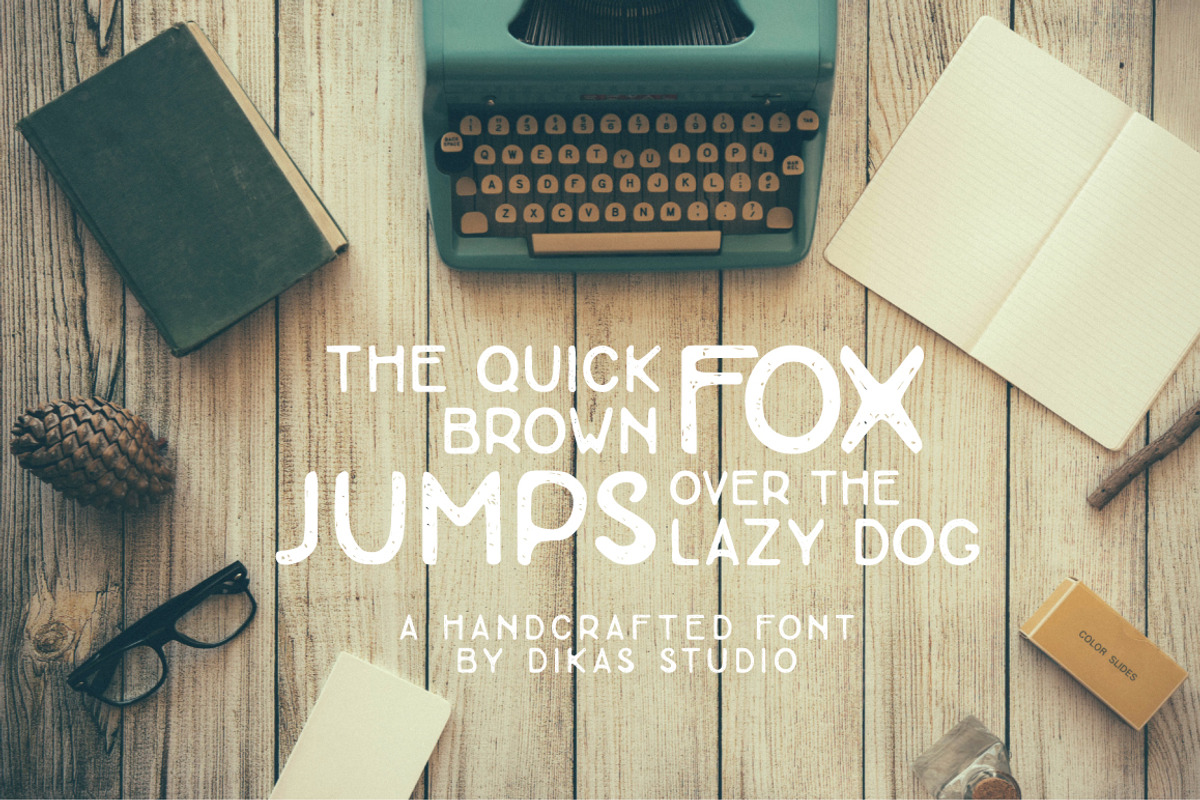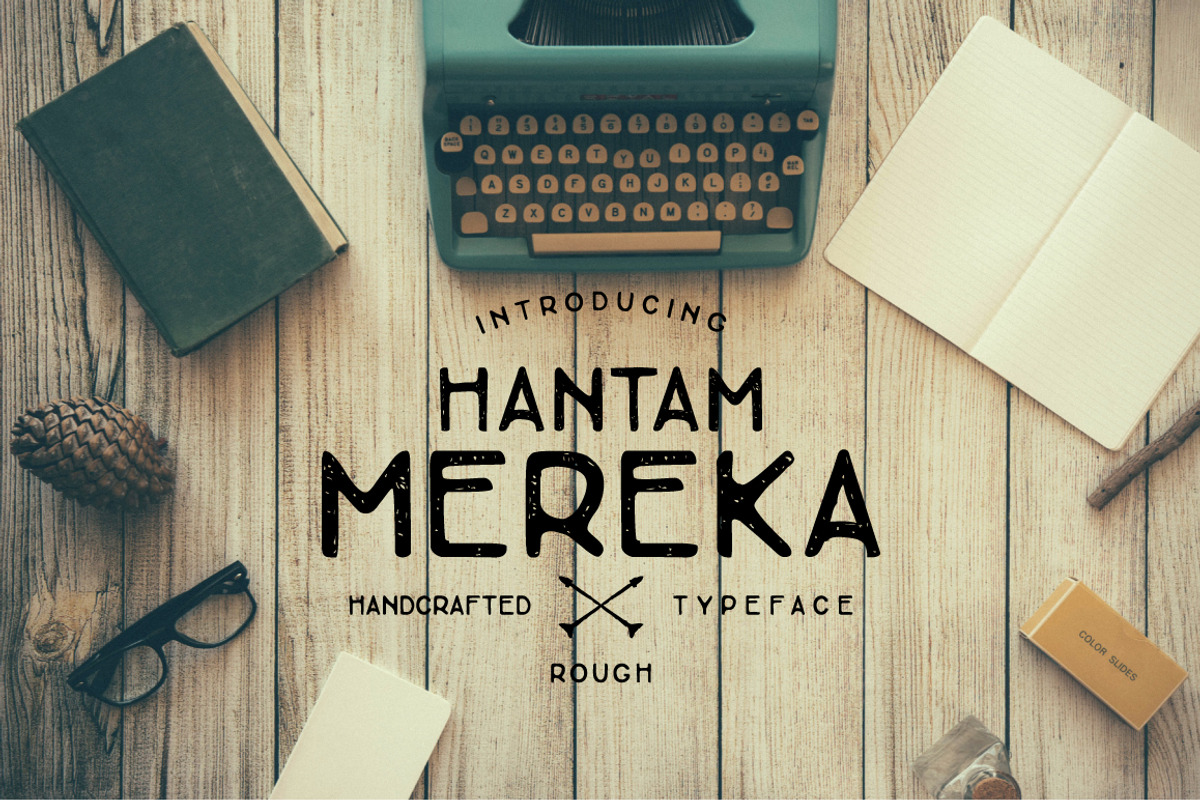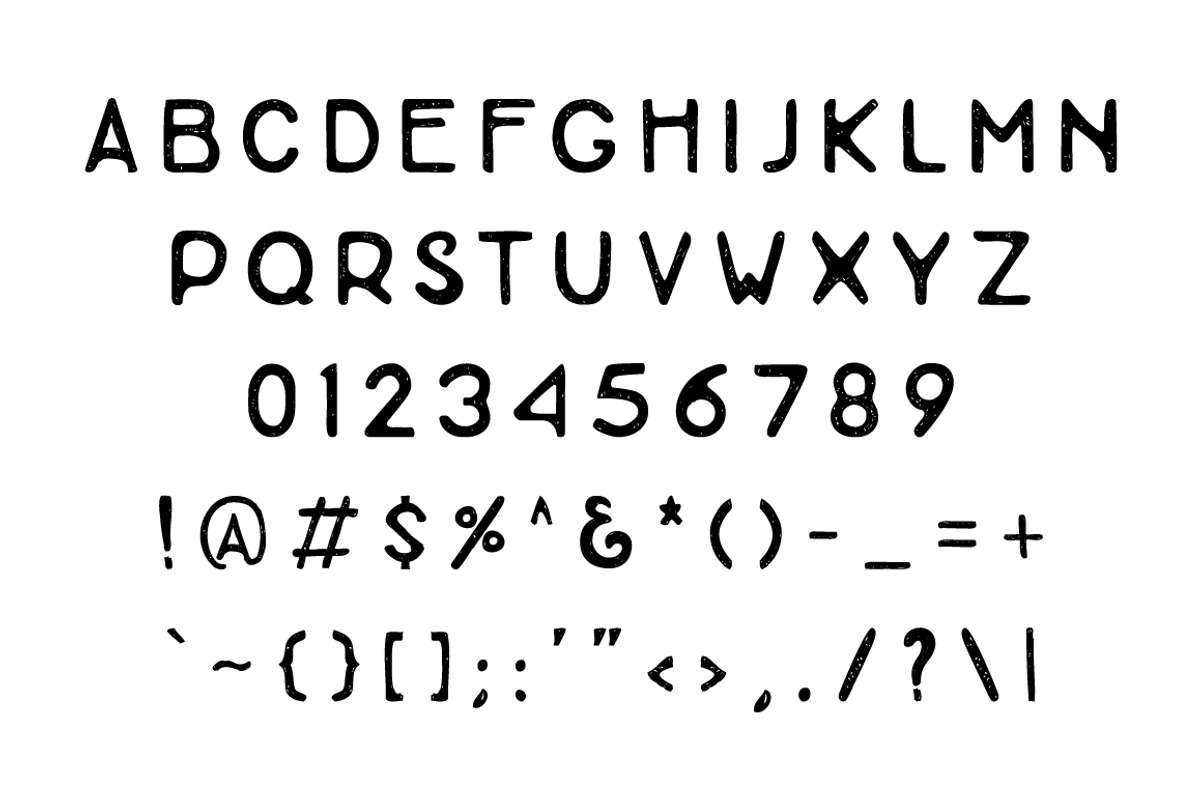
Hantam Mereka - Handcrafted typeface
Hantam Mereka - Handcrafted typeface by Dikas Studio is a font selected for branding, posters, packaging, typography.
- It includes 26 characters, 10 numbers, and limited punctuation.
Why Hantam Mereka - Handcrafted typeface is worth a look
Hantam Mereka - Handcrafted typeface by Dikas Studio fits naturally into Branding, posters, packaging, typography.